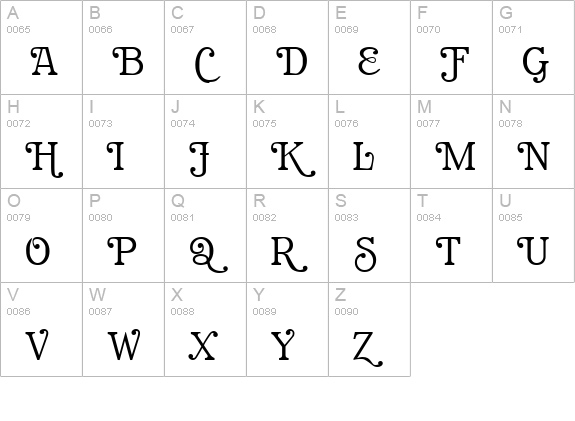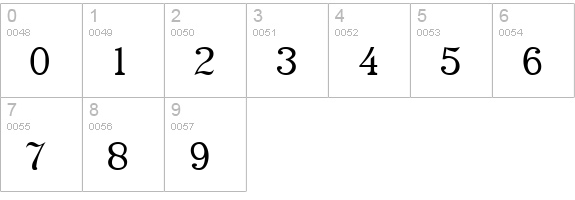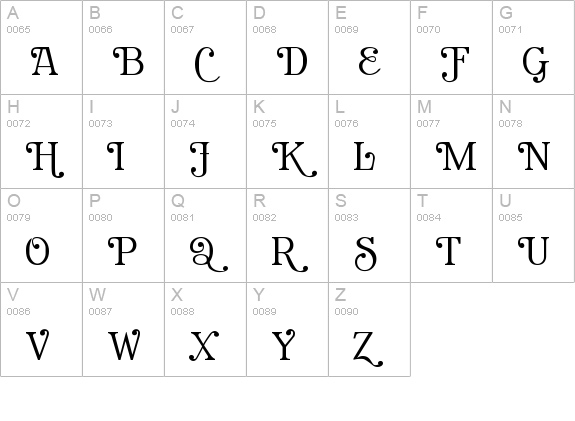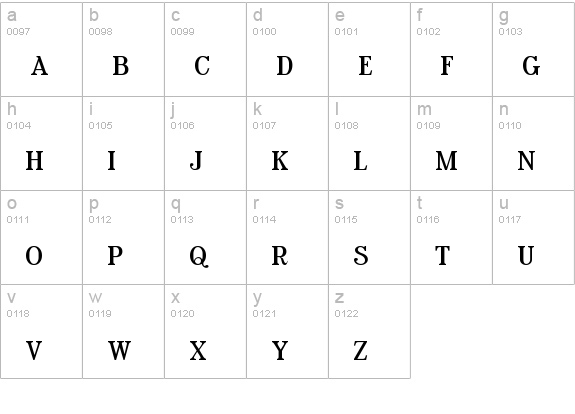
RataczakSwash Font Details
Introducing RataczakSwash, a stunningly elegant font that effortlessly blends sophistication with a touch of playfulness. This font is perfect for those seeking a versatile typeface that can be used for various projects, from branding and packaging to invitations and headlines. What sets RataczakSwash apart is its intricate and beautifully crafted swashes that add a unique and dynamic flair to each letterform. These swashes gracefully extend from select letters, creating a captivating visual rhythm that is both eye-catching and visually pleasing. With its clean lines and balanced proportions, RataczakSwash exudes a sense of refined elegance, making it an excellent choice for those aiming to make a lasting impression. Whether it's designing a logo for a high-end fashion brand or creating a sophisticated wedding invitation, this font will effortlessly elevate any project to new heights. But what makes RataczakSwash truly remarkable is that it is available for free. Yes, you heard that right – this extraordinary font is freely accessible to everyone. Thanks to FontsMarket.com, you can download RataczakSwash without any cost or registration hassles. This means that you can unleash your creativity and bring your design visions to life without breaking the bank. So why wait? Take advantage of this incredible opportunity and download RataczakSwash today. With its exquisite swashes, versatile applications, and the fact that it is freely available, this font is a must-have for any designer or creative enthusiast. Get ready to make a statement and leave a lasting impression with RataczakSwash.